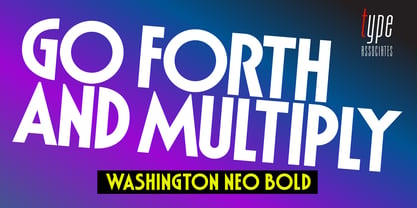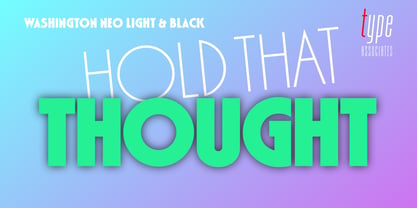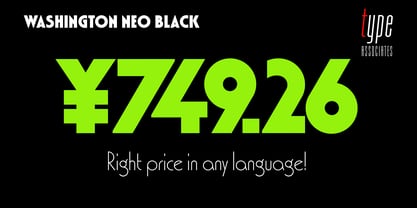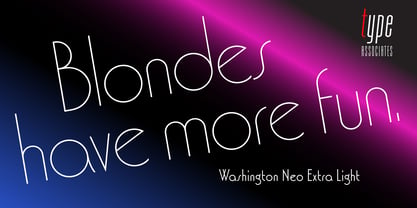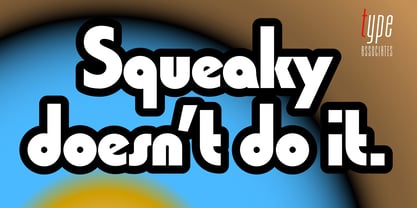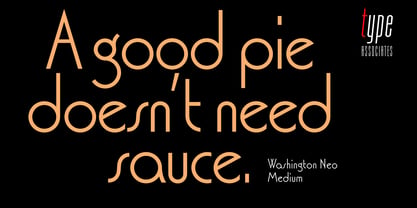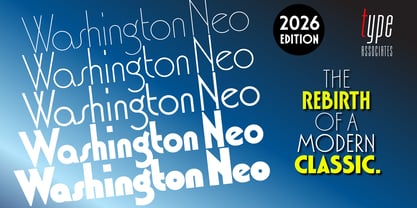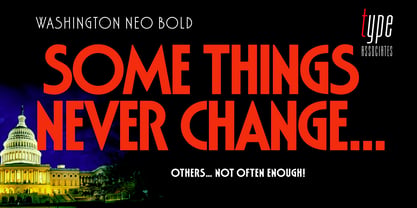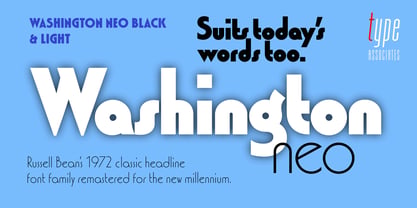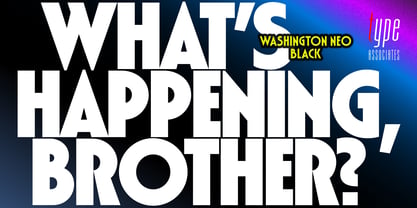
Washington Neo
by Type Associates
The Washington Neo Font Family was designed by Russell Bean and published by Type Associates. Washington Neo contains 5 styles and family package options. More about this family
The original Washington series, crafted by Russell Bean between 1972 and 1973, was first released by Lettergraphics International Inc. as a film font family. It gained traction among various European font vendors, although the rights remained with the designer. This digital iteration, launched 53 years after its original debut, restores the figures to their authentic design while introducing several enhancements. Notable improvements include an alternate lowercase 's' accessible via the features palette, along with ligatures for 'ts' and 'Th'. This versatile typeface is ideal for branding, packaging, and user interfaces, offering a blend of classic elegance and modern functionality.